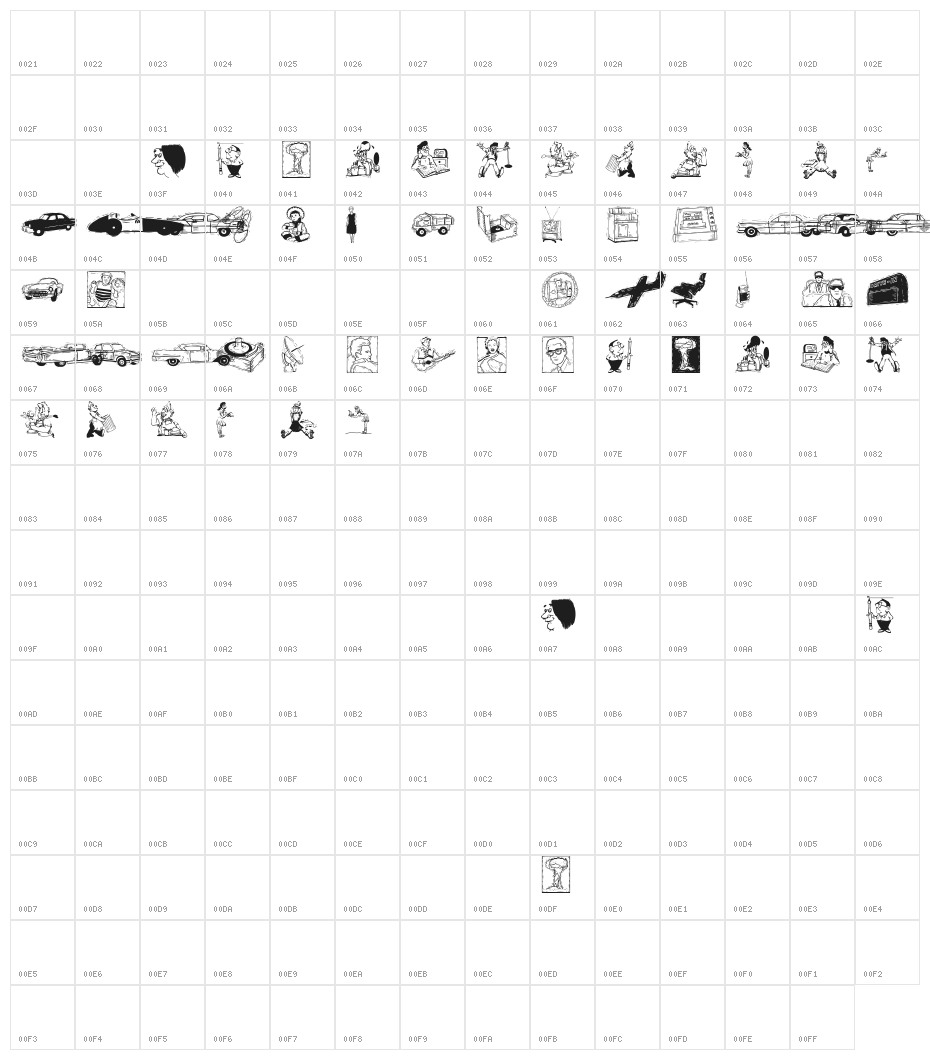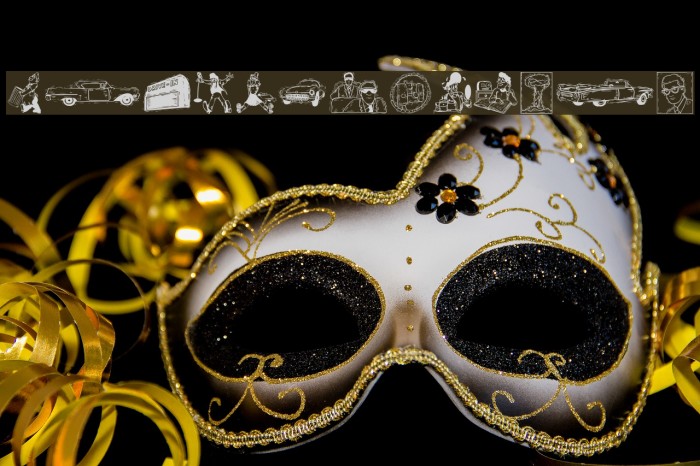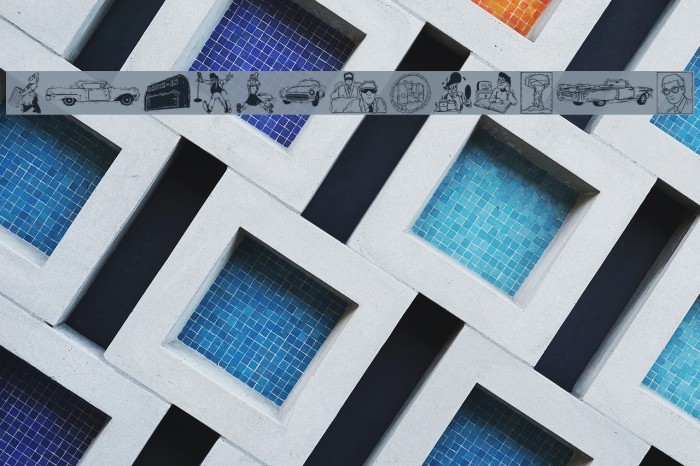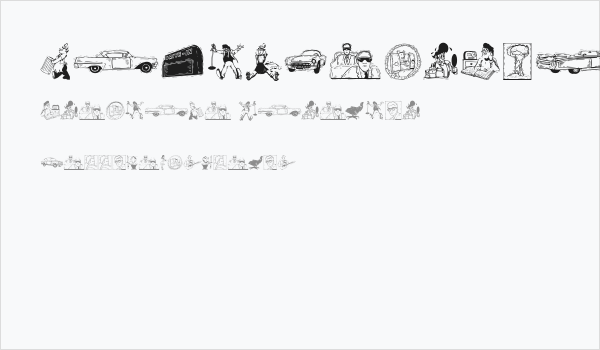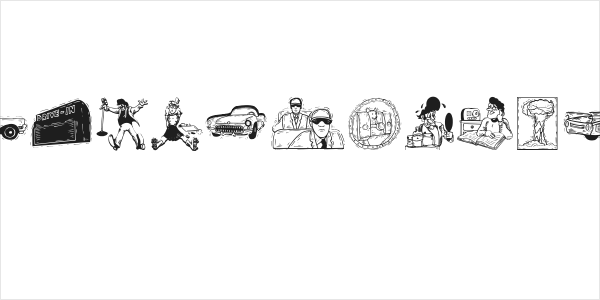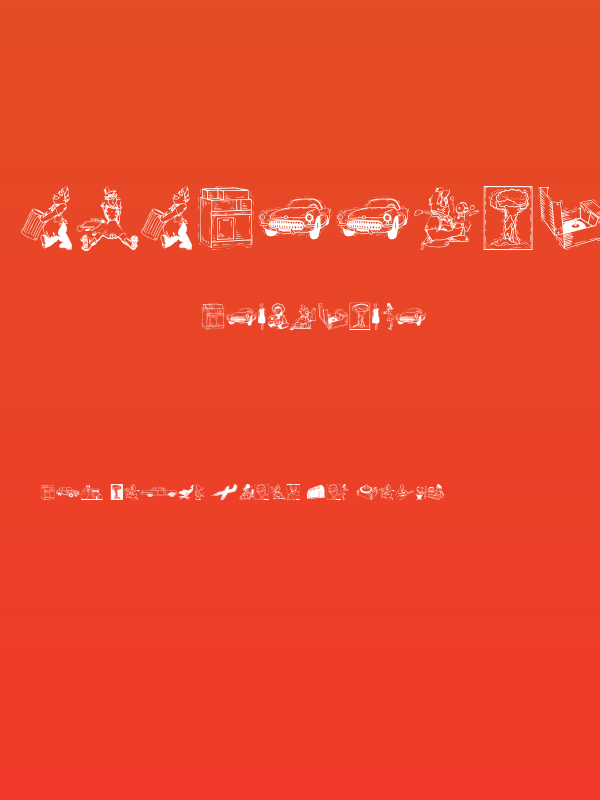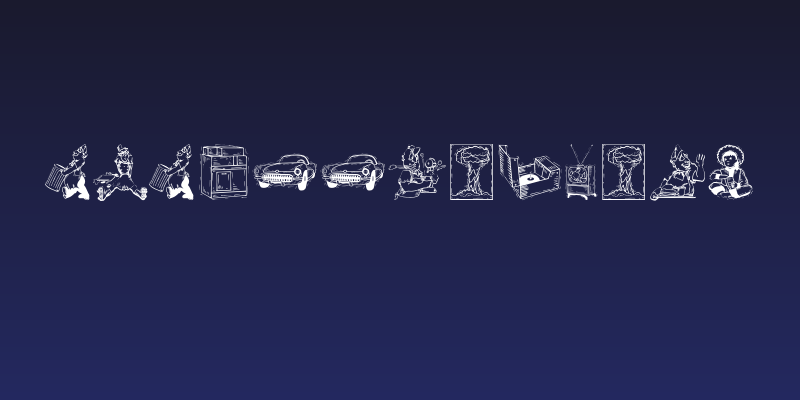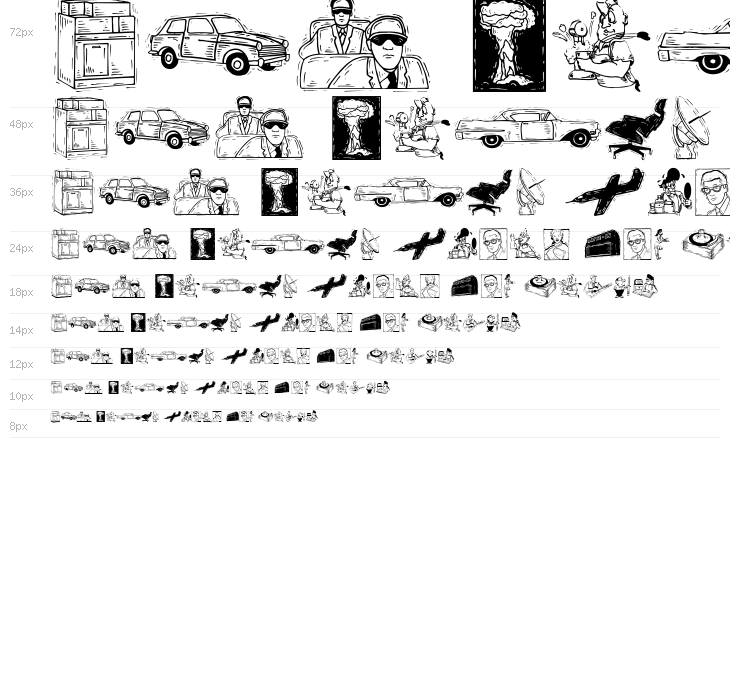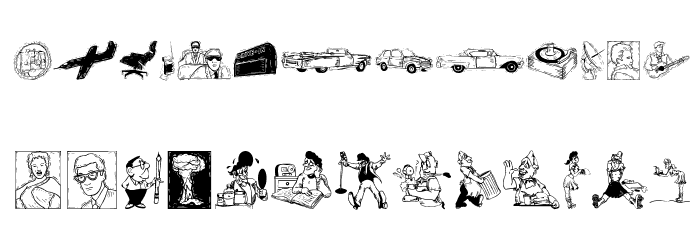
FiftyYearsAgo Font
FiftyYearsAgo Description
A decorative dingbat font featuring detailed black-and-white illustrations of people, vehicles, objects, and scenes reminiscent of the 1950sΓ’β‚¬β€œ1970s. Each character is represented by a unique, hand-drawn cartoon or sketch, evoking a nostalgic, retro atmosphere.
Overall StyleVintage, Decorative
Use CaseDecorative elements, Themed graphics, Scrapbooking, Posters
Proposed ProjectsPeriod posters, retro event invitations, educational materials, themed scrapbooks, creative headlines.